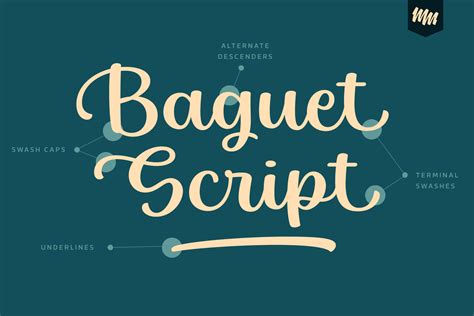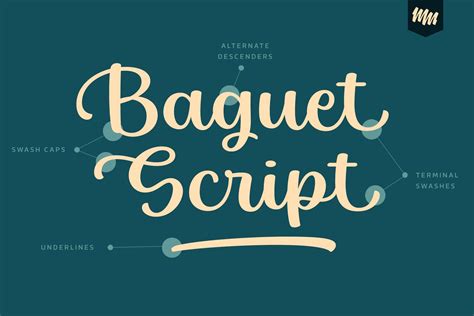
Baguet Script Regular Font Free Download - Baguet script font is free for personal use. Web so if you are looking for soft, friendly and modern script with lots of options and versatility check baguet script. Baguet script regular by mika melvas. Link to purchase full version and. Web baguet script handwritten font. Download baguet script regular font. The letters has soft terminals and slight bounce. Baguet script is a modern brush script family. It has three weights in italic and upright styles. Votes, rated based on results identification.
Web so if you are looking for soft, friendly and modern script with lots of options and versatility check baguet script. Web baguet script handwritten font. Baguet script is a modern brush script family. Baguet script regular by mika melvas. It has three weights in italic and upright styles. Link to purchase full version and. Web baguet script font family. This font can be used for a variety of projects, from websites and posters to. Votes, rated based on results identification. The letters has soft terminals and slight bounce.
Votes, rated based on results identification. Download baguet script regular font. Web baguet script font family. It has three weights in italic and upright styles. Baguet script font is free for personal use. This font can be used for a variety of projects, from websites and posters to. Web so if you are looking for soft, friendly and modern script with lots of options and versatility check baguet script. Baguet script is a modern brush script family. Baguet script regular by mika melvas. The letters has soft terminals and slight bounce.
This font can be used for a variety of projects, from websites and posters to. Baguet script font is free for personal use. It has three weights in italic and upright styles. Baguet script is a modern brush script family. Baguet script regular by mika melvas.
Web baguet script handwritten font. Baguet script regular by mika melvas. Download baguet script regular font. The letters has soft terminals and slight bounce. Web so if you are looking for soft, friendly and modern script with lots of options and versatility check baguet script.
Baguet script is a modern brush script family. Download baguet script regular font. Web so if you are looking for soft, friendly and modern script with lots of options and versatility check baguet script. It has three weights in italic and upright styles. Baguet script font is free for personal use.
Link to purchase full version and. Votes, rated based on results identification. It has three weights in italic and upright styles. Web baguet script handwritten font. This font can be used for a variety of projects, from websites and posters to.
This font can be used for a variety of projects, from websites and posters to. Baguet script is a modern brush script family. Web baguet script font family. Web so if you are looking for soft, friendly and modern script with lots of options and versatility check baguet script. Download baguet script regular font.
Baguet script regular by mika melvas. Download baguet script regular font. Baguet script is a modern brush script family. It has three weights in italic and upright styles. The letters has soft terminals and slight bounce.
Baguet script font is free for personal use. Web baguet script font family. Baguet script regular by mika melvas. This font can be used for a variety of projects, from websites and posters to. Download baguet script regular font.
Download free Baguette font, free Baguette.ttf Regular font for Windows
Baguet script is a modern brush script family. It has three weights in italic and upright styles. Baguet script regular by mika melvas. Web so if you are looking for soft, friendly and modern script with lots of options and versatility check baguet script. Web baguet script handwritten font.
Baguette Font download free
The letters has soft terminals and slight bounce. Baguet script font is free for personal use. It has three weights in italic and upright styles. Download baguet script regular font. Web baguet script font family.
Web Baguet Script Handwritten Font.
It has three weights in italic and upright styles. Download baguet script regular font. Link to purchase full version and. Baguet script regular by mika melvas.
The letters has soft terminals and slight bounce. This font can be used for a variety of projects, from websites and posters to. Baguet script font is free for personal use. Web so if you are looking for soft, friendly and modern script with lots of options and versatility check baguet script.
Baguet Script Is A Modern Brush Script Family.
Web baguet script font family.